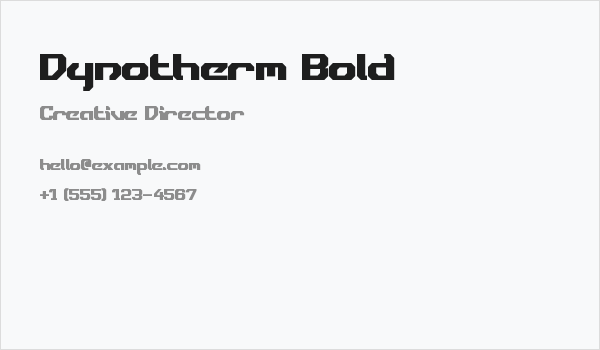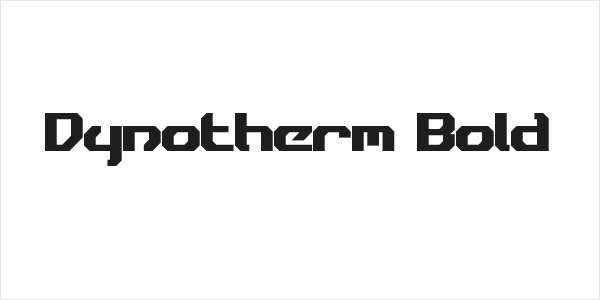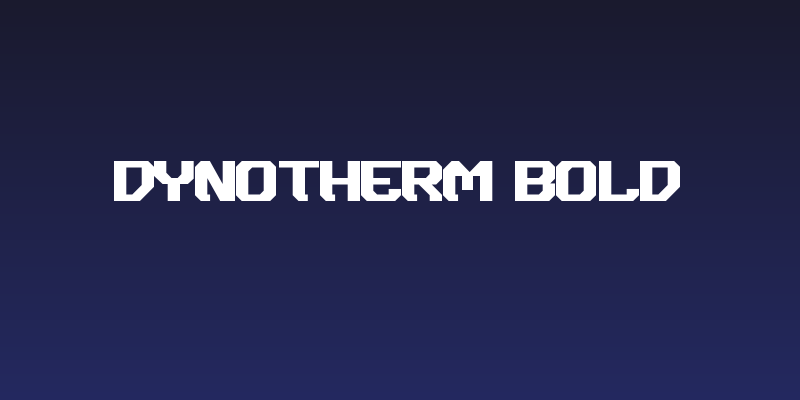
Dynotherm Bold Font
Dynotherm Bold Description
This font features a bold, geometric design with sharp angles and a futuristic aesthetic. The characters are constructed with thick, block-like strokes that convey strength and modernity. The uppercase and lowercase letters maintain a consistent style, with unique cutouts and angular edges that add a dynamic feel. The numerals and special characters follow the same design principles, ensuring uniformity across all glyphs. This font is ideal for projects that require a strong, impactful visual presence, such as technology branding, sci-fi themes, or video game titles.
| Proposed Projects | Ideal for technology branding, sci-fi themes, video game titles, and impactful headlines. |